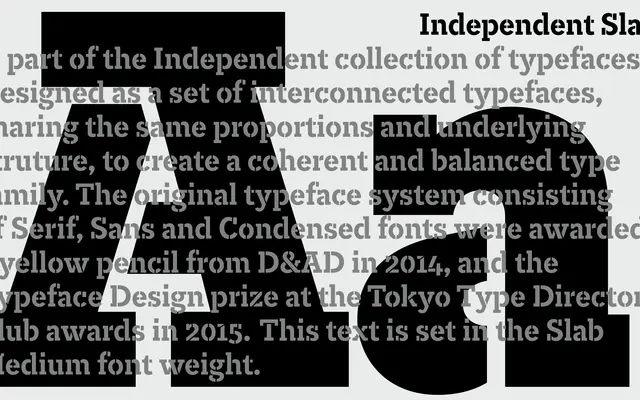
Independent Slab Stencil
A2-Type · 2013
Independent Slab Stencil specimen from A2-Type
A stencil slab serif drawn as part of the broader Independent newspaper type system, sharing proportions with the rest of the family across five weights.
Part of the Independent family commissioned in 2013 for The Independent newspaper's print and digital editions, the Slab Stencil variant applies stencil cuts to the slab serif foundation shared across the wider suite. Five weights run from Light to Black, offering range for display and campaign applications. The parent family earned a D&AD Yellow Pencil in 2014 and the Typeface Design prize at the Tokyo TDC in 2015.
A stencil variant of a slab serif designed for newspaper use; the stencil cuts and slab serifs together push it firmly into the display category despite sharing the underlying structure of the text-oriented Independent family.